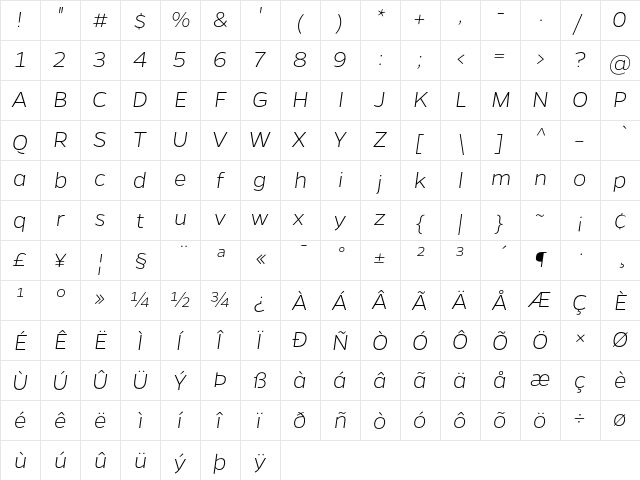
Gentona ExtraLight Italic Regular
Design Context for Gentona ExtraLight Italic Typeface
Gentona ExtraLight Italic takes a measured approach to typography — its balanced proportions and neutral character make it a reliable workhorse for both digital and print work. Its italic angle brings a sense of urgency and motion to the letterforms. Its slender proportions lend an understated elegance to any composition.
Pro Tip: Use Gentona ExtraLight Italic for emphasis, pull quotes, and subheadings where its slanted energy can add rhythm to the layout.